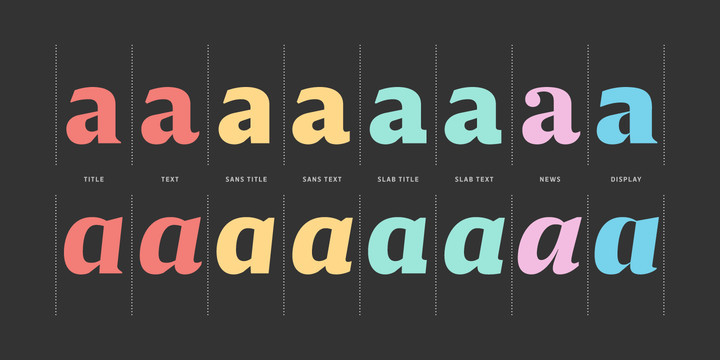
Breve Text Font Family
Breve Text Font Family was designed by Dino dos Santos and published by DSType. Breve Text contains 12 styles and family package options.  More about this family.
Breve Text Font Family was designed for use in editorial projects. Simple but with enough personality to stand by is own, in a quest for a more forceful and contemporary appearance. All the fonts in Breve superfamily, share the same exact structure, both in terms of anatomy and functionality. The Text versions provide a softer and warm feel to the typographic palette and is intended for use in much longer passages of text, while the Title versions are distinguished by non-descending letterforms, making the titles and headlines much more uniform and interesting. The News version is more classic, with ball terminals and classic proportions, while the Display is, somehow, the set of fonts we had to design: extra-black, ultra-contrasted, proud-display fonts.